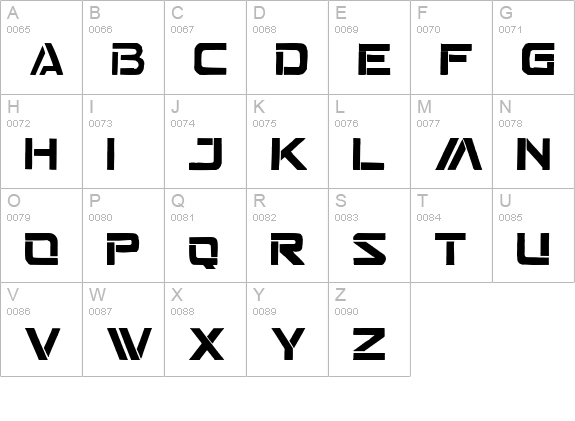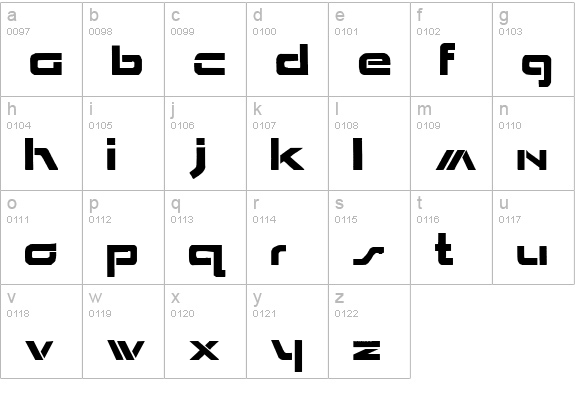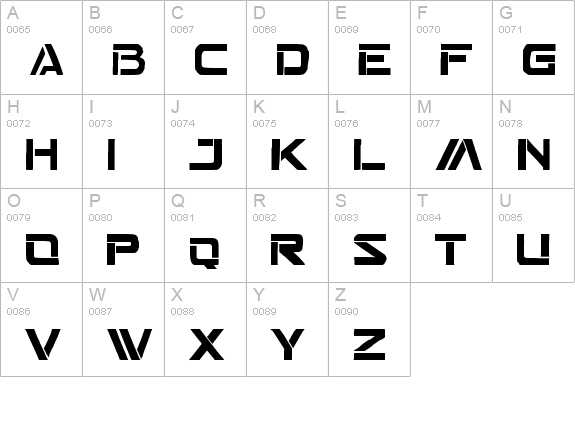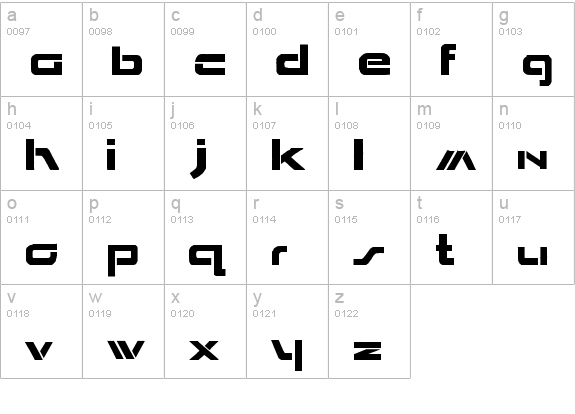
Seperated Font Details
Introducing the captivating Seperated font, a striking typeface that effortlessly combines modern elegance with a playful touch. This unique font is sure to catch the eye and add a touch of creative flair to any project. Seperated font features beautifully crafted letterforms that are carefully separated, creating a visually distinct and eye-catching effect. Each character is meticulously designed to stand out, making it perfect for headlines, logos, branding materials, and more. With its sleek and sophisticated design, Seperated font is versatile enough for a wide range of design projects. Whether you're working on a professional website, a stylish magazine layout, or even a fun party invitation, this font will instantly elevate your design to a whole new level. One of the best things about Seperated font is that it is free! Yes, you read that right. This incredible font is freely available to download at FontsMarket.com. So, you can easily incorporate this stunning font into your projects without worrying about breaking the bank. Not only is Seperated font visually captivating, but it also offers excellent legibility, ensuring that your message is conveyed effortlessly to your audience. Its clean lines and distinct shapes make it easy to read, even at smaller sizes. So, if you're looking to add a touch of modern elegance and creativity to your design projects, look no further than Seperated font. Download it for free at FontsMarket.com and let your imagination run wild with the endless possibilities this font has to offer.